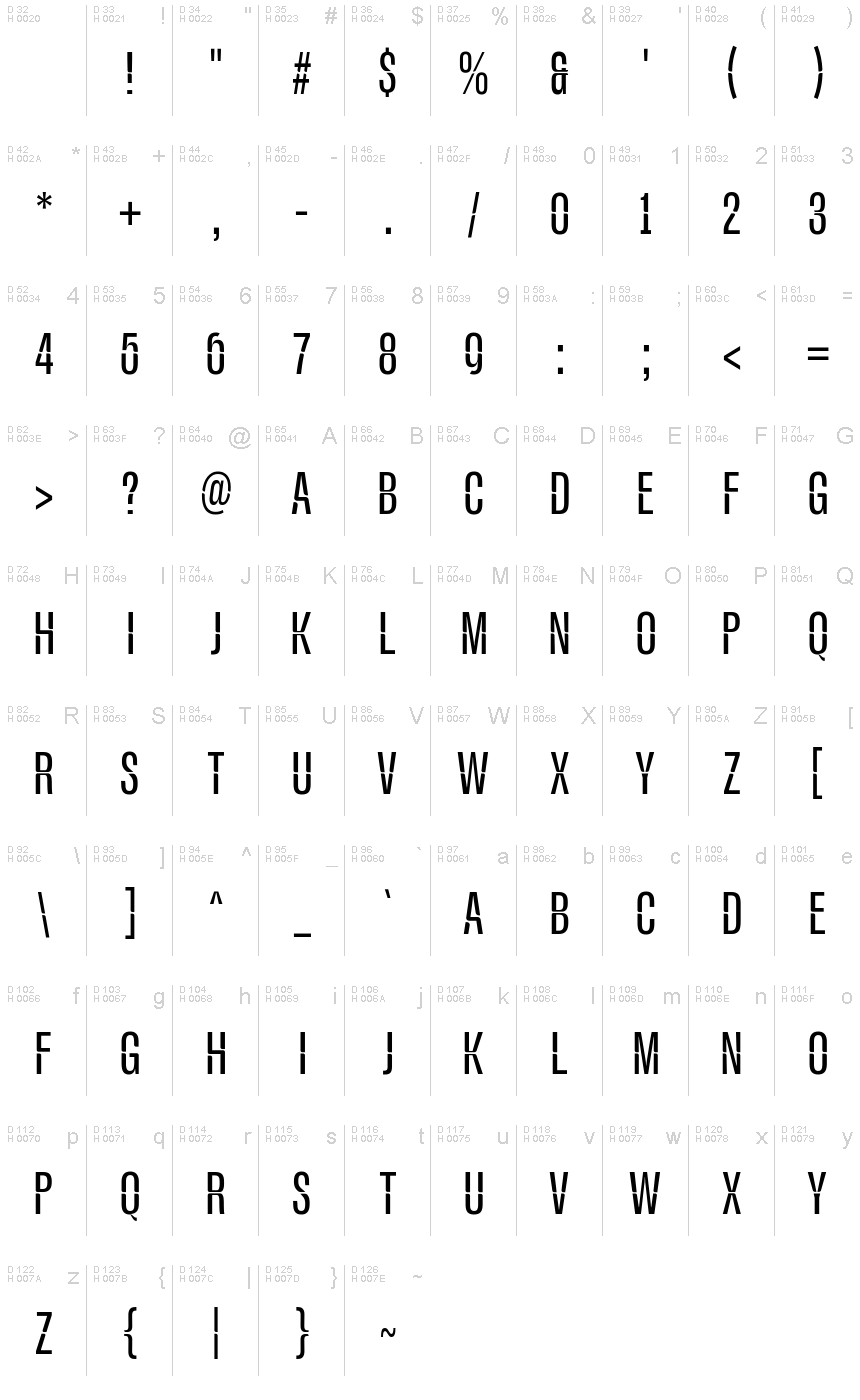
ZT Ravigsfen Alternate
ZT Ravigsfen is a captivating sans-serif grotesque font that pays homage to the bold, unapologetic style of classic sci-fi. Designed by Zelow Type, this condensed typeface exudes a striking blend of modernity and retro-futuristic charm. Its stencil-inspired strokes and angular forms evoke a sense of technological prowess and adventure, making it a standout choice for visually striking designs.
Versatile and adaptable, ZT Ravigsfen lends itself to a wide range of applications, from eye-catching branding and packaging to dynamic editorial layouts and immersive digital experiences. Its condensed width allows for efficient typesetting, making it an excellent option for projects where space optimization is a priority. Whether crafting futuristic logos, crafting attention-grabbing headlines, or seeking to infuse a touch of sci-fi allure into a design, ZT Ravigsfen is a font that commands attention and leaves a lasting impression.
ZT Ravigsfen Key Features:
9 Remarkable Weights
3 Styles (Grotesque, Oblique, & Alternate)
Captivating Alternative Style
Distinct Aura in Every Thickness
Rich with 525 Glyph